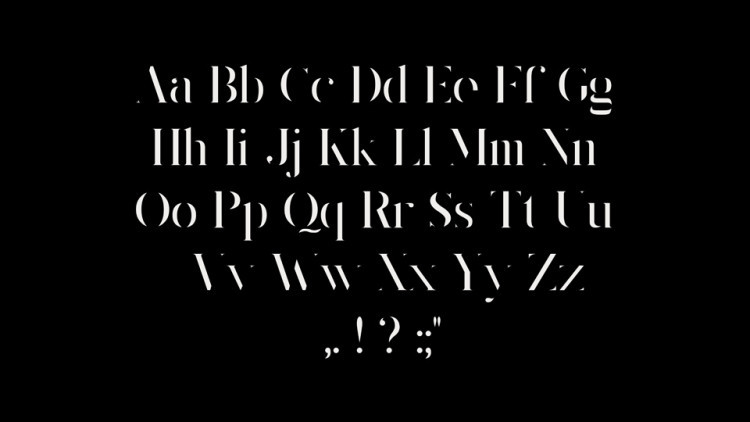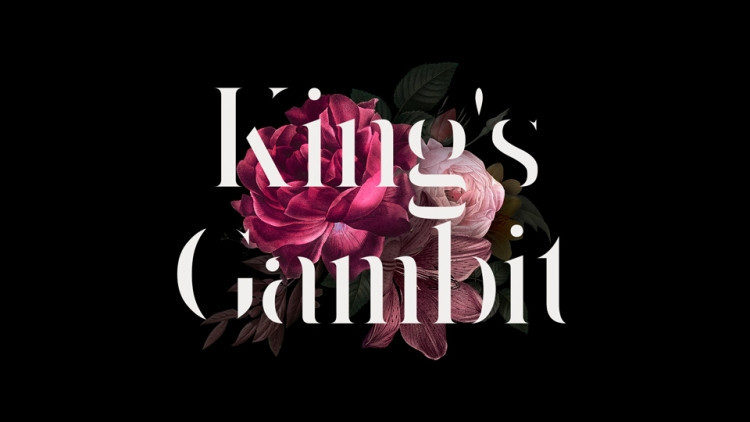
King’s Gambit Serif Font
King’s Gambit Serif Font King’s Gambit Font
King’s Gambit Serif Font
Hello! King’s Gambit Font is a modern fashionable style font. Inspired by the timeless high fashion branding of our time. It’s designed and shared by Matthew Welch. It’s a classy typeface with strong, thick serifs. It has a little bit of personality and can be used for headers and body copy in heavier weights. It’s simplistic and forward approach gives an elevated feel and elegance to any product it touches.